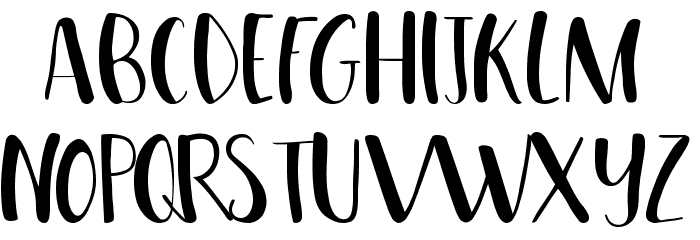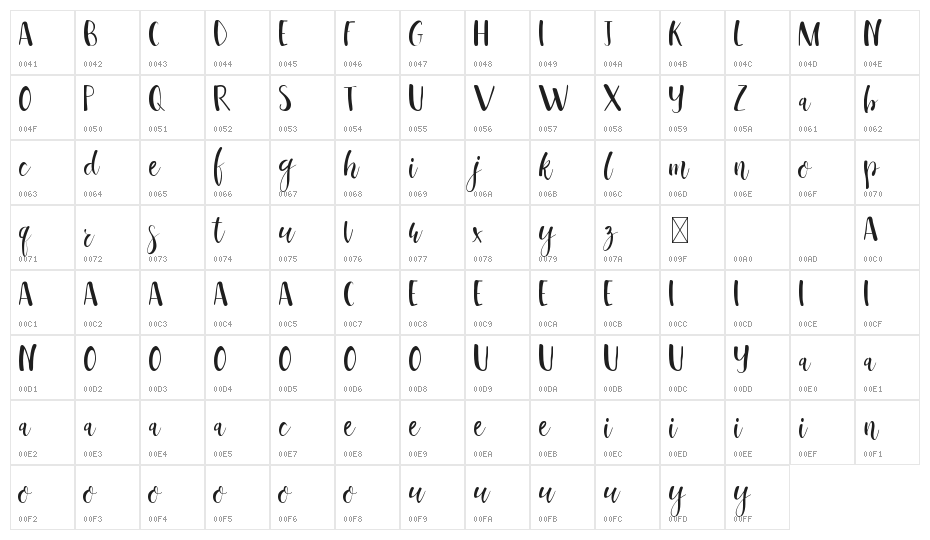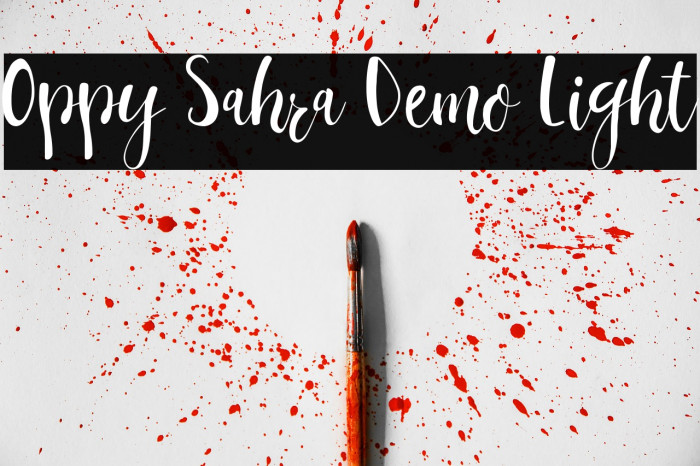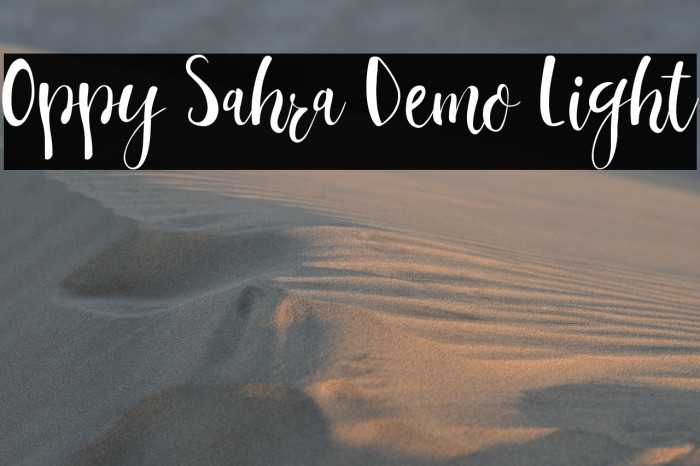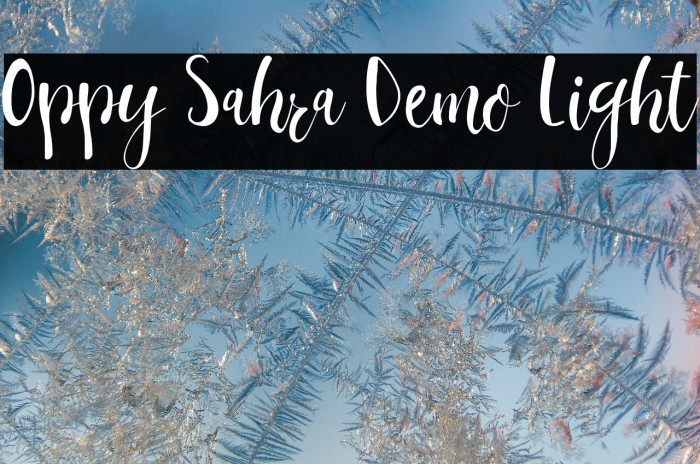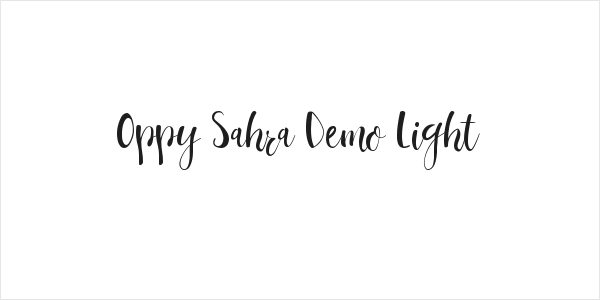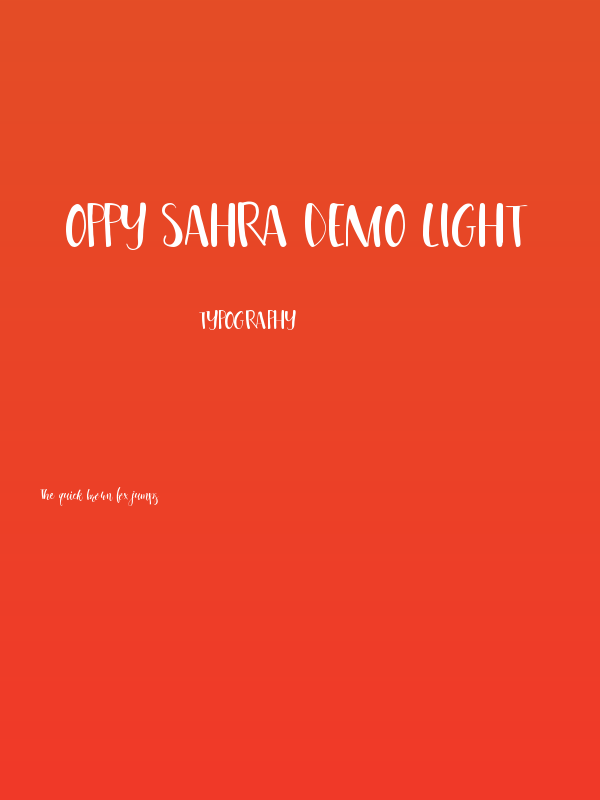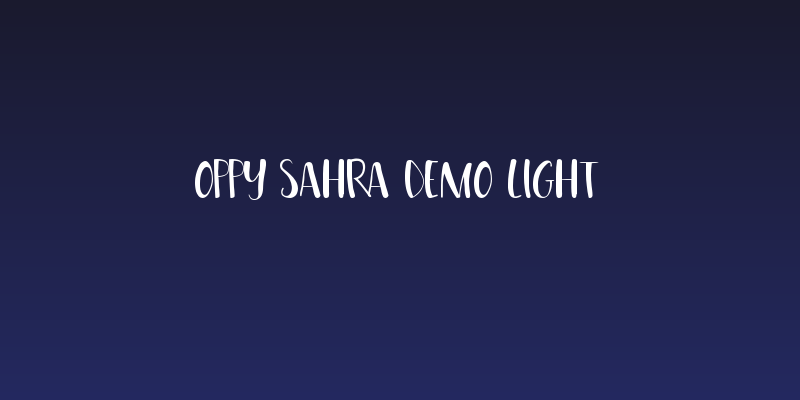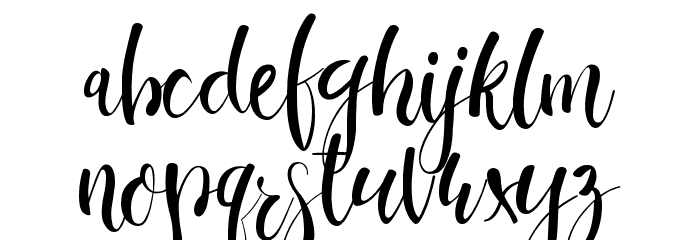
Oppy Sahra Demo Light Font
Oppy Sahra Demo Light Description
This font features a playful and artistic script style with a handwritten feel. The uppercase letters are bold and slightly condensed, giving a strong presence, while the lowercase letters are more fluid and connected, adding a whimsical touch. The strokes vary in thickness, creating a dynamic contrast that enhances its visual appeal. The font maintains a consistent baseline, which contributes to its readability despite the decorative elements. It is suitable for creative projects where a personal and informal tone is desired.